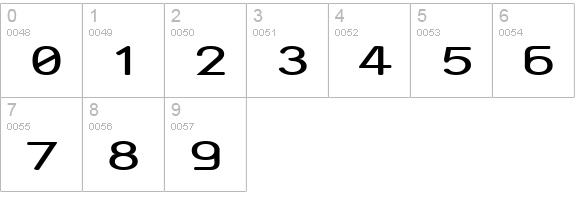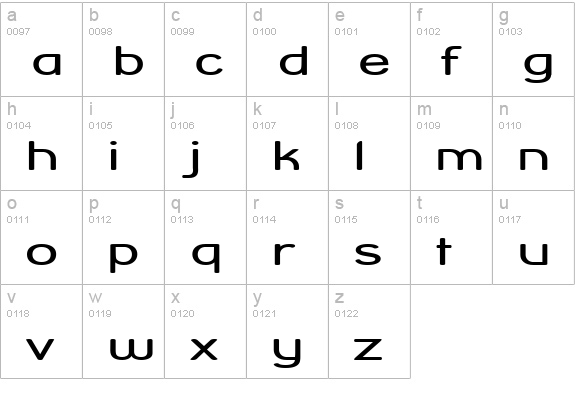
Street Corner Extend Font Details
Street Corner Extend is a modern and stylish font that exudes urban charm and sophistication. With its sharp angles and extended letterforms, this font is perfect for making a bold statement in your designs. Whether you're creating posters, logos, or branding materials, Street Corner Extend will add a contemporary edge to your projects. What's even better is that Street Corner Extend is available for free download at FontsMarket.com. This means you can easily access this eye-catching font and incorporate it into your creative work without any cost. Don't miss out on the opportunity to elevate your designs with the unique flair of Street Corner Extend. Download it now and let your creativity shine!